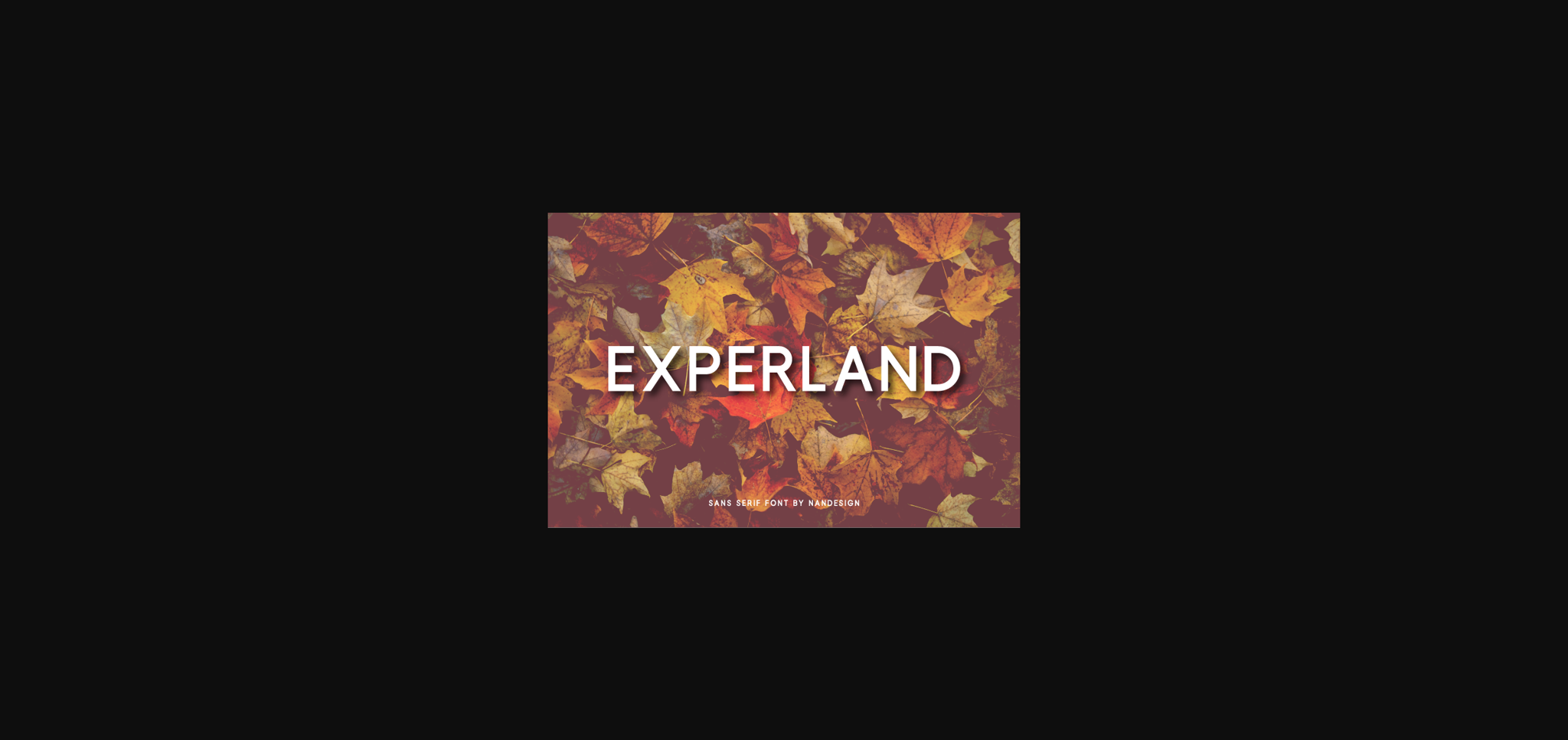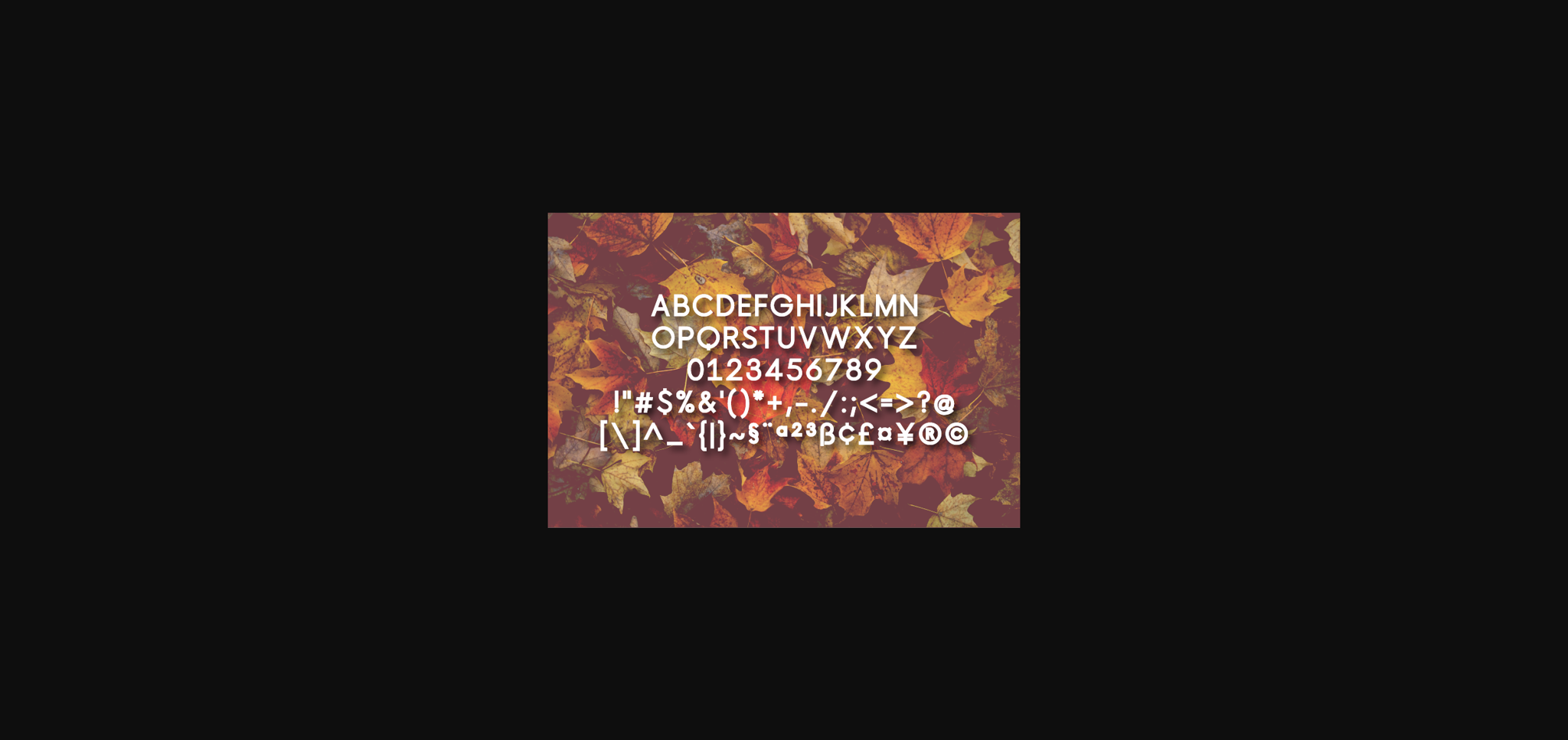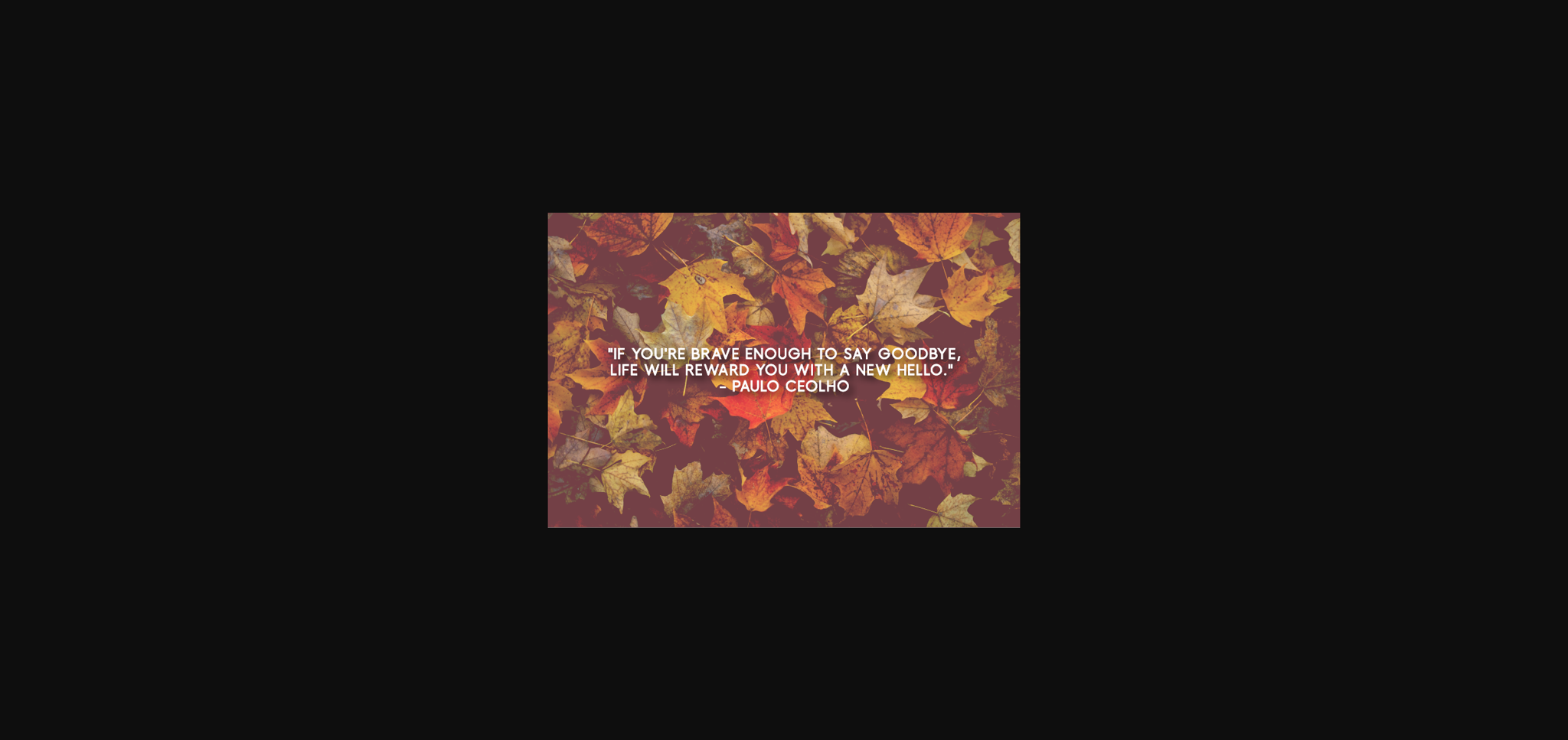
About Experland Font
Experland is a stunning sans serif, created to complement every project you’re working on.
It is perfect for displays, headers, invitations, save the dates, weddings, and so much more!